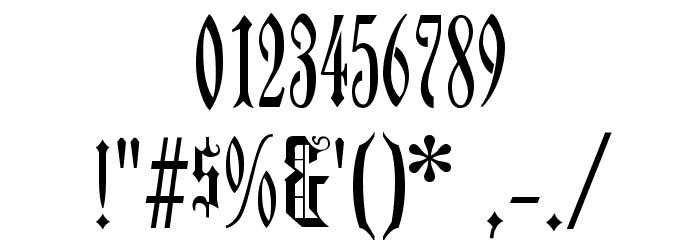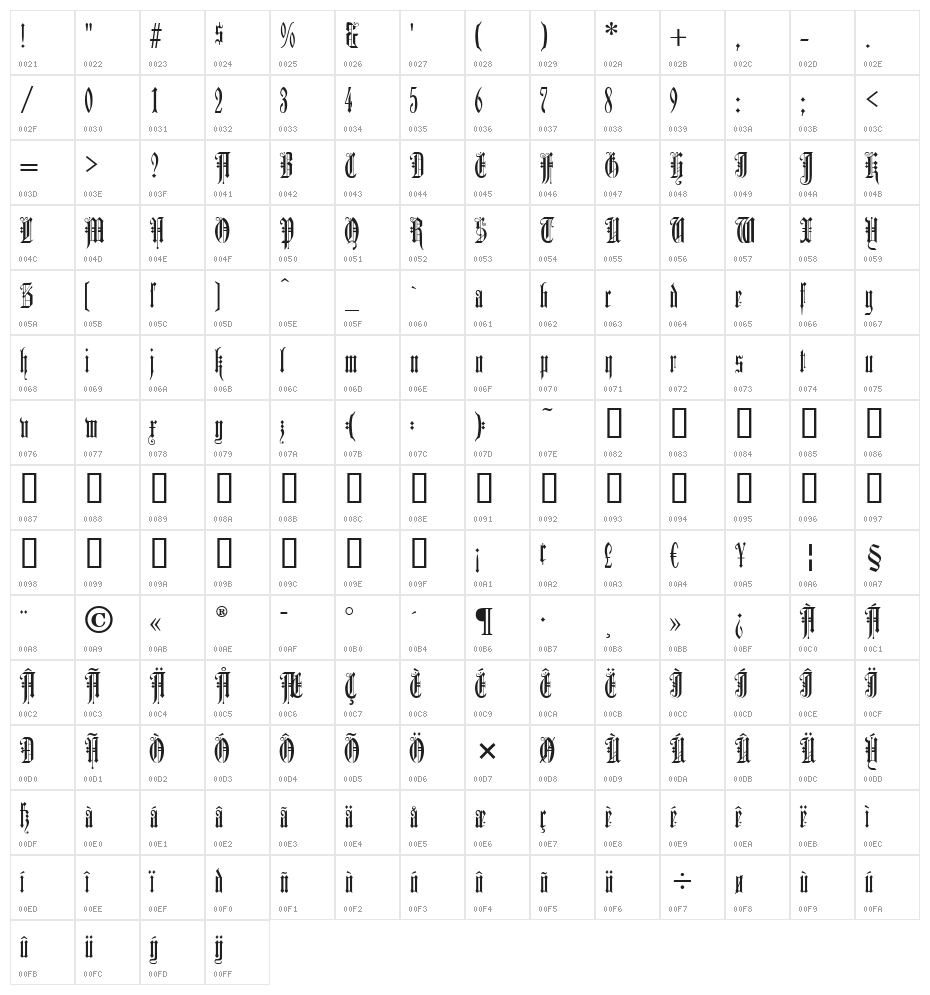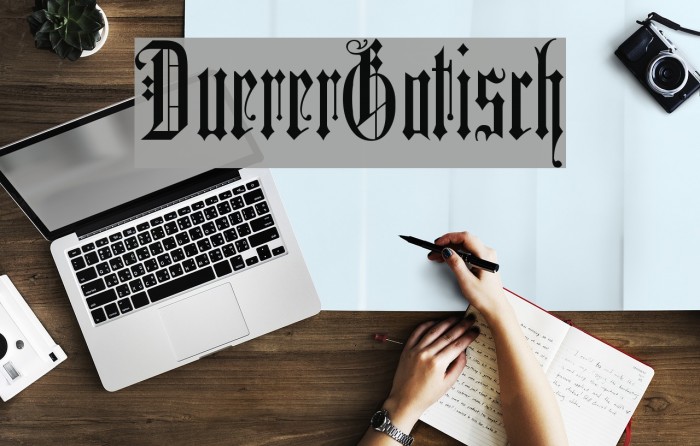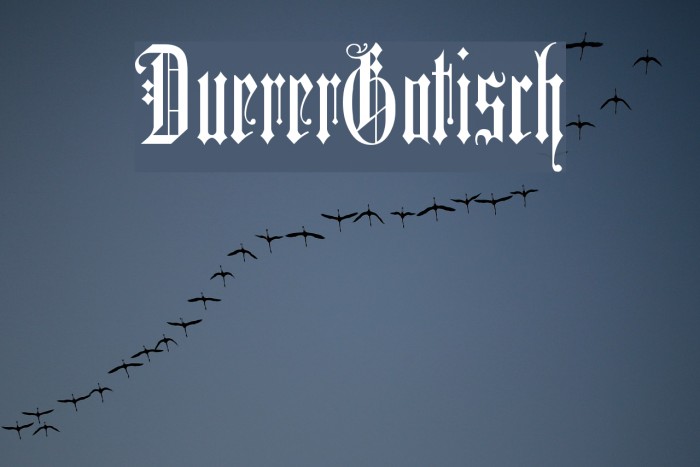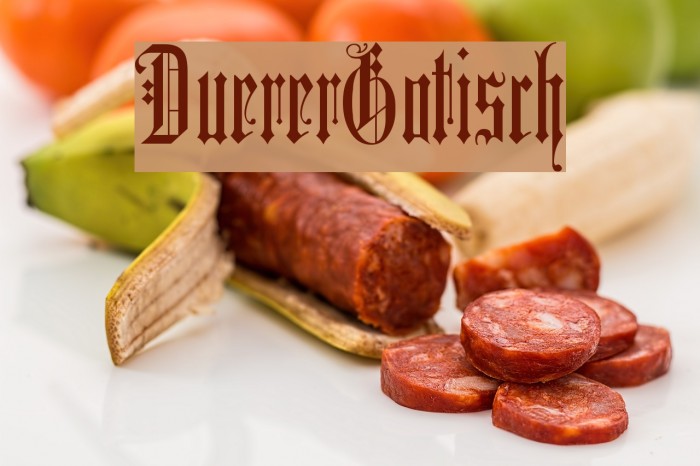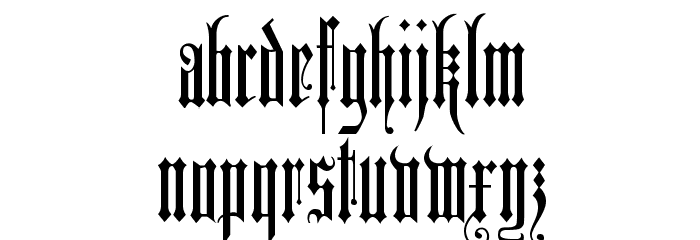
DuererGotisch Font
DuererGotisch Description
This font exhibits a classic Blackletter style, characterized by its intricate and ornate design. The letters are highly decorative, with sharp, angular lines and elaborate flourishes that give it a medieval appearance. The uppercase letters are particularly striking, with bold strokes and detailed embellishments. The lowercase letters maintain the same level of detail, ensuring consistency across the typeface. Numbers and special characters are also designed with the same attention to detail, making this font suitable for projects that require a historical or gothic aesthetic. The overall impression is one of elegance and complexity, making it ideal for creating a dramatic visual impact.
| Proposed Projects | Ideal for historical documents, gothic-themed designs, book covers, and decorative posters. |